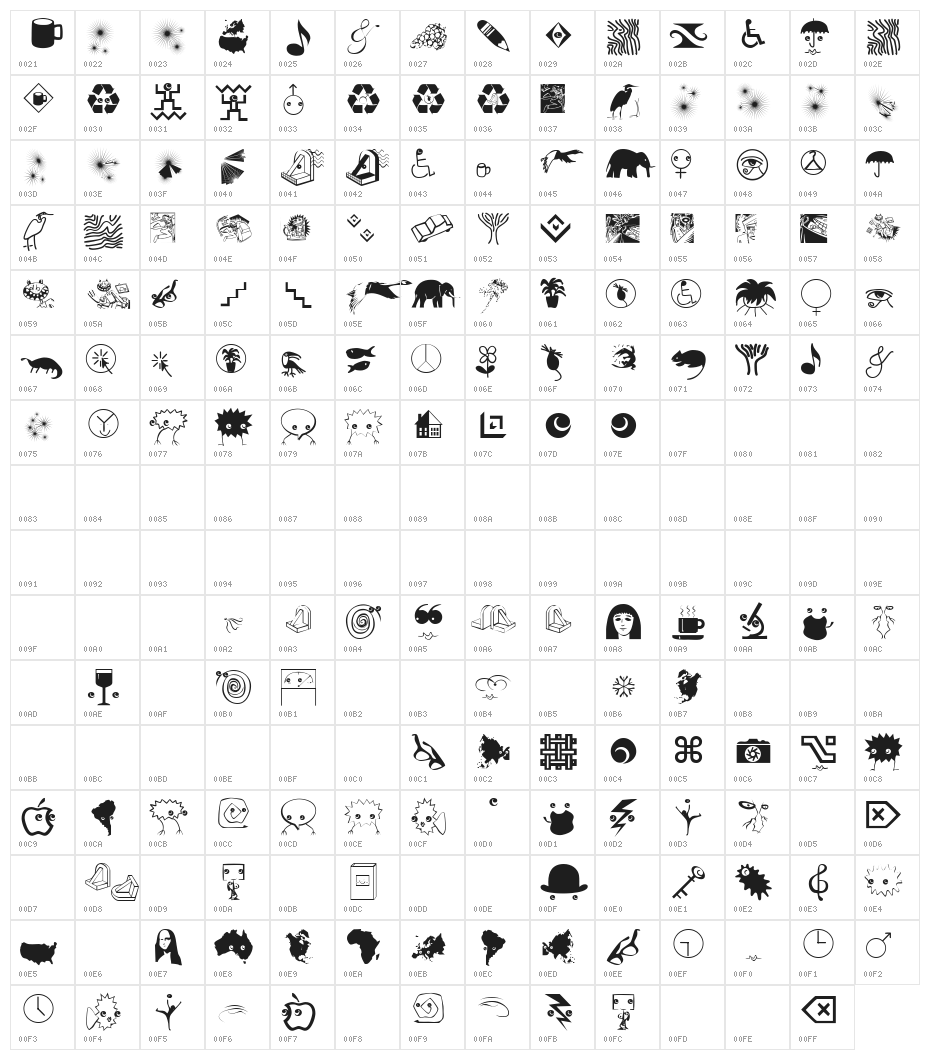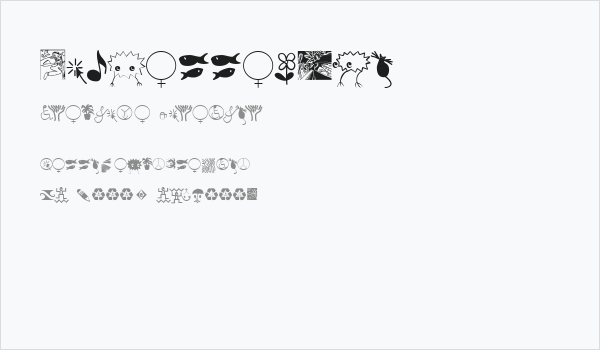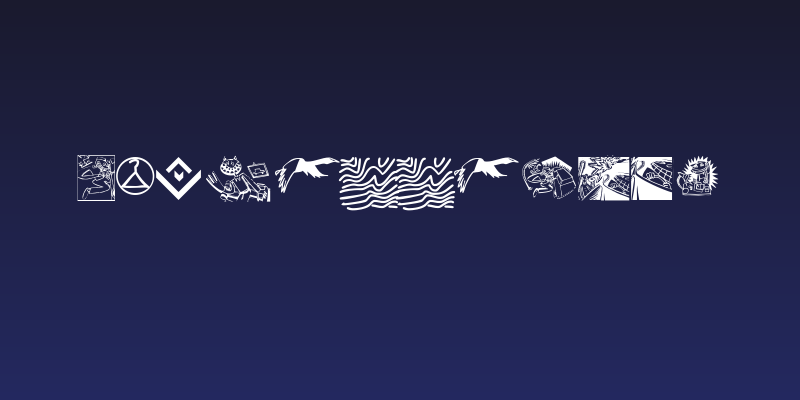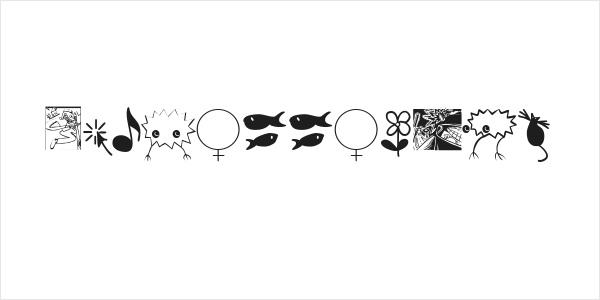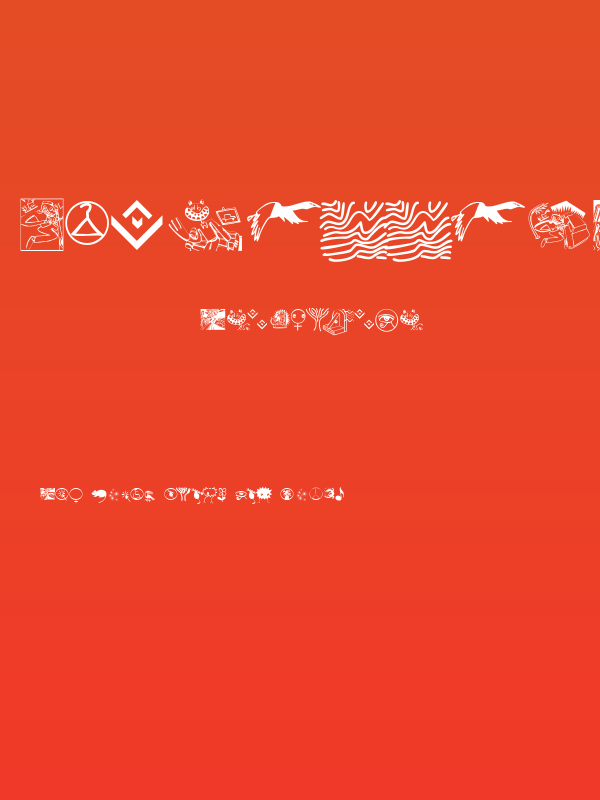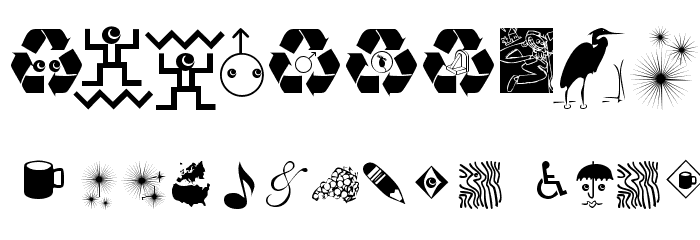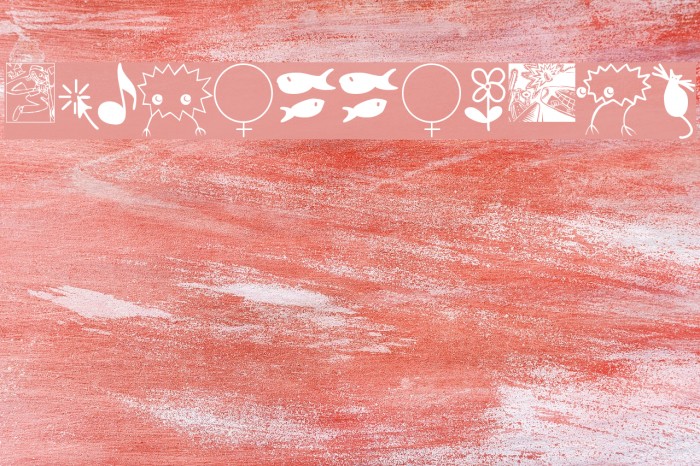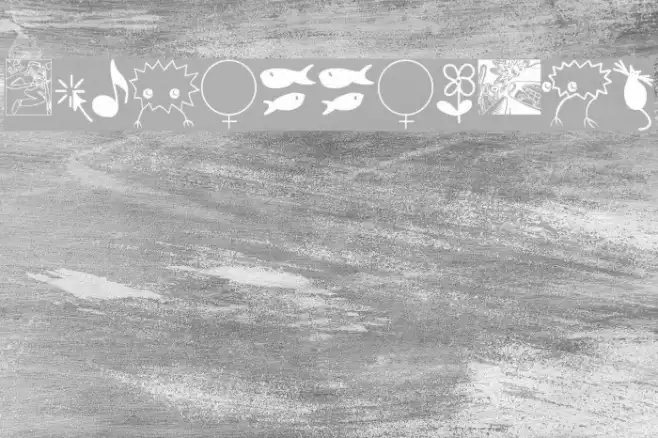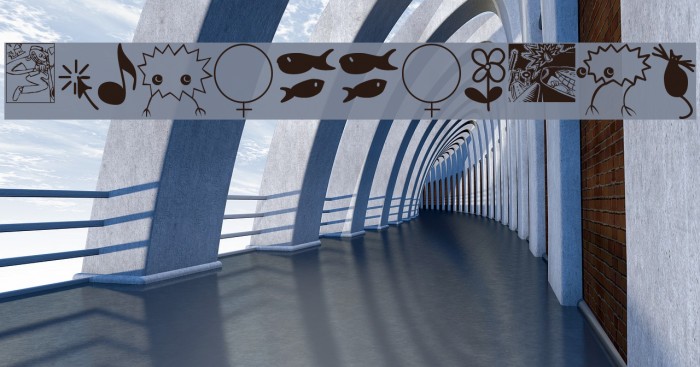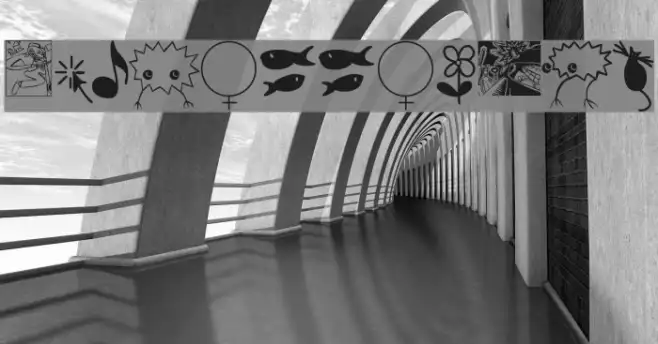
MiszellenTwo Font
MiszellenTwo Description
A highly decorative dingbat and pictogram set featuring a wide variety of playful, abstract, and illustrative icons including animals, plants, symbols, faces, and objects, rendered in bold black and white with strong outlines and whimsical details.
| Overall Style | Decorative, Playful, Whimsical |
| Use Case | Icons, Decorative elements, Visual storytelling, Branding |
| Proposed Projects | Posters, flyers, educational materials, creative branding, children's books, infographics, decorative borders. |